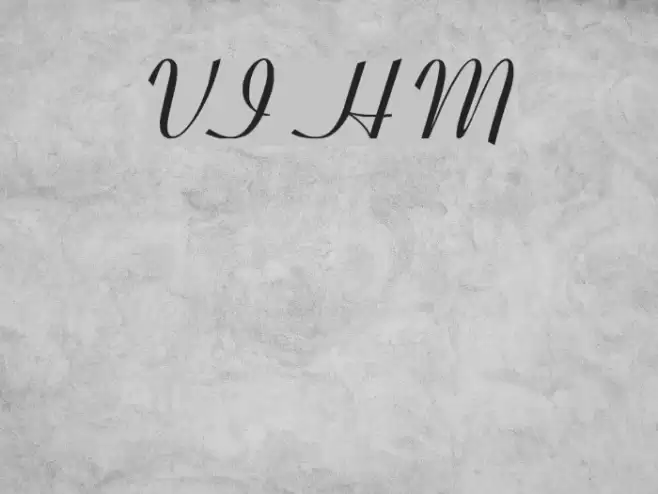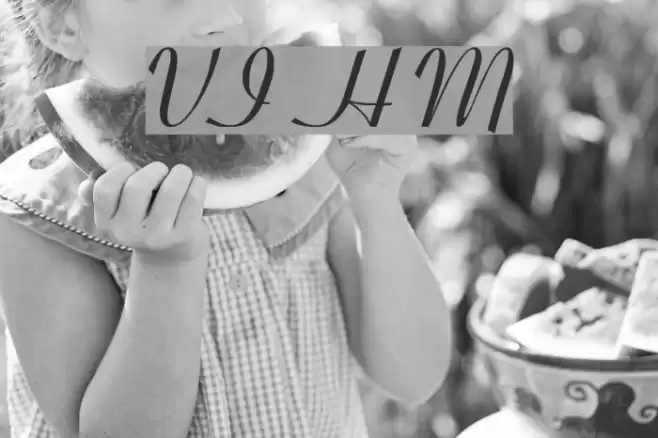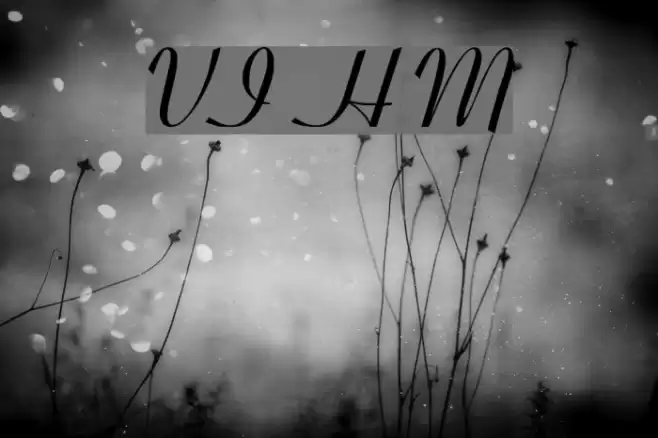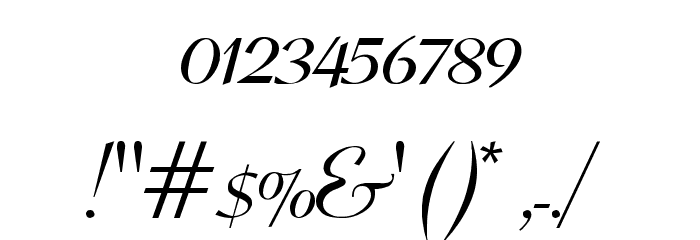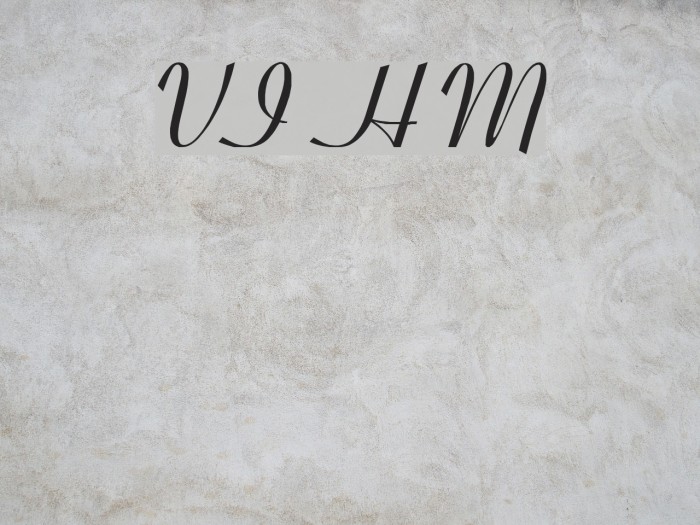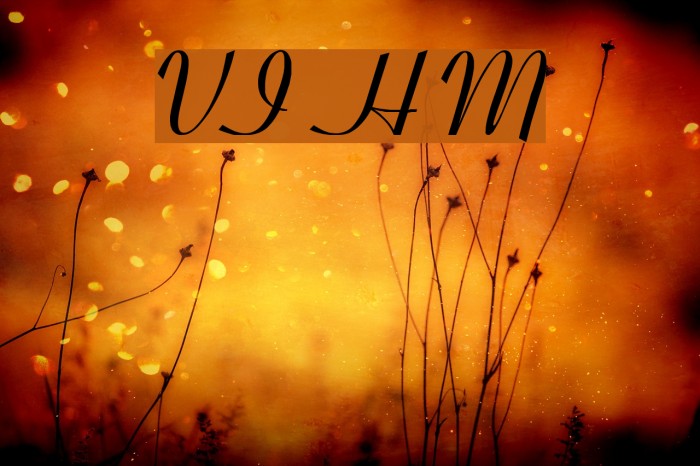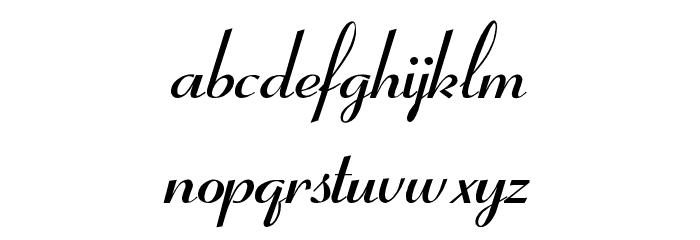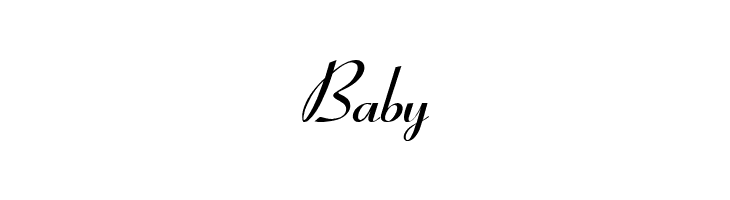
VI Hoang Mai Font
VI Hoang Mai Description
This font features a sophisticated and elegant script style, characterized by its flowing, cursive letterforms. The uppercase letters exhibit a graceful, sweeping motion with delicate curves and loops, while the lowercase letters maintain a consistent fluidity, enhancing readability. The numerals are designed with a similar flair, ensuring a cohesive look throughout. Special characters are thoughtfully integrated, maintaining the font's overall aesthetic. This font's refined appearance makes it suitable for formal and decorative applications.
An elegant script font with flowing, cursive letterforms and graceful curves from Uncategorized fonts.
- Proposed Projects: Ideal for wedding invitations, elegant branding, luxury packaging, and decorative headlines.
- Overall Style: Elegant
- Use Case: Headlines, Invitations, Branding